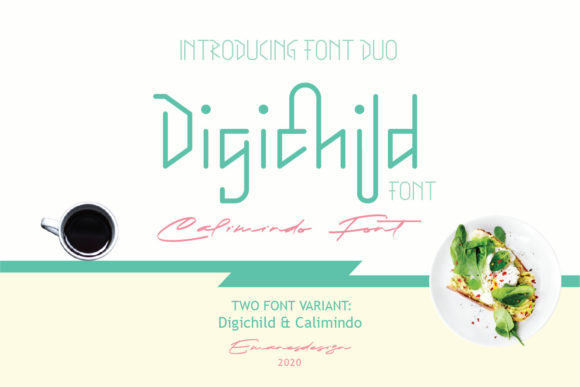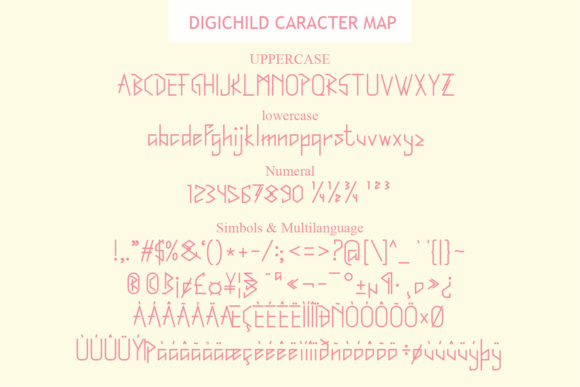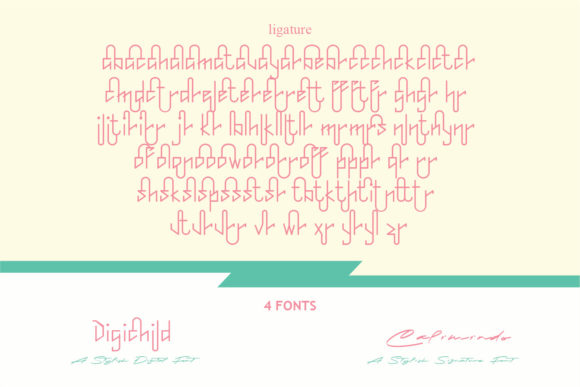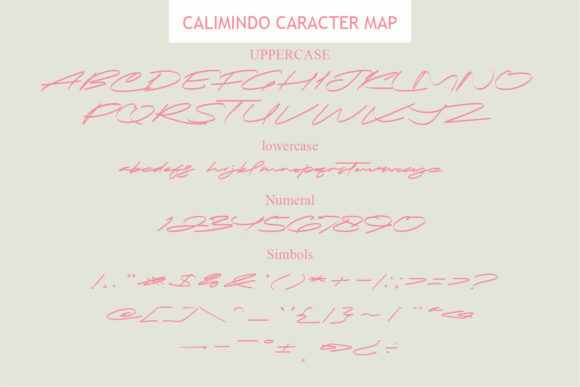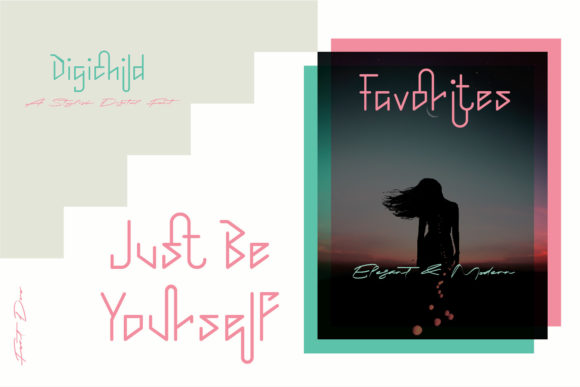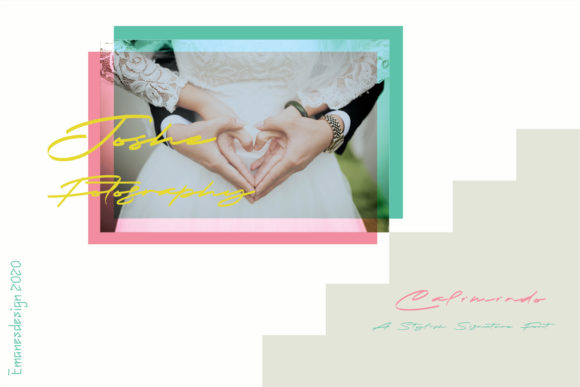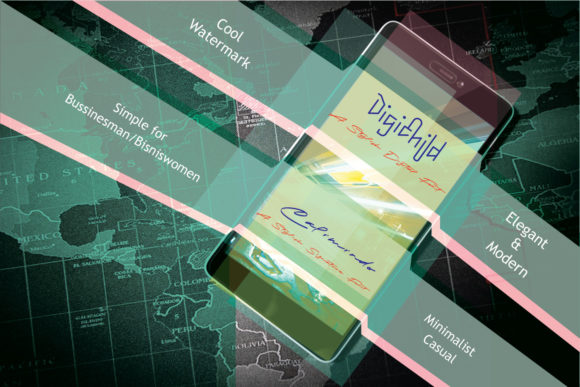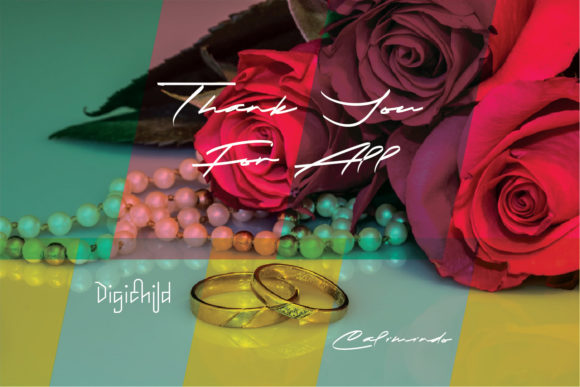
HomeScript FontsDigichild Duo Font Script Fonts Digichild Duo Font FacebookXPinterestWhatsApp Digichild Duo Font Poster 2 Digichild Duo Font Poster 3 Digichild Duo Font Poster 4 Digichild Duo Font Poster 5 Digichild Duo Font Poster 6 Digichild Duo Font Poster 7 Digichild Duo Font Poster 8 About Digichild Duo Font Digichild Duo consists of a sans serif and script style typefaces. Fall in love with its playful look & feel! DOWNLOAD ON CREATIVE FABRICAThis font is sold and delivered by Creative Fabrica. Font Canyon may earn a commission if you buy through this link. People also explored Swaziland Font Star Slab Font Sans Modern Font Roses Font Gigih Font Fraxinus Font Qailla Gloam Font Happy Hour Doodles Micelle Font 313 0 TagsDigichild Duo Font Previous articleBattofi FontNext articlePink Snake Font LEAVE A REPLY Cancel reply Comment: Please enter your comment! Name:* Please enter your name here Email:* You have entered an incorrect email address! Please enter your email address here Website: Save my name, email, and website in this browser for the next time I comment. Personal Use Free Dolce Vita Personal Use Free Read more about this font Angola Beach Personal Use Free Read more about this font Susanna Personal Use Free Read more about this font Covelia Personal Use Free Read more about this font BLOG Fonts That Capture the Spirit of New York City New York City is more than just a place—it’s an experience, a rhythm, a visual language... How to Install and Use Fonts on Windows, macOS, and Web Projects Transform Your Website: Elevate Your Typography with 7 Best Web Font Generators Top 7 Google Fonts Alternatives for Faster and Privacy-Friendly Web Design (2025)